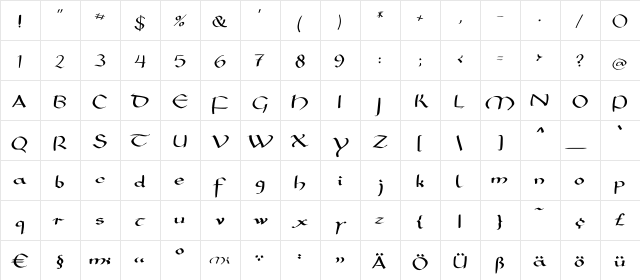
MKarolingish Regular
Design Context for MKarolingish Typeface
MKarolingish is a composed and adaptable typeface that performs quietly and consistently across a wide range of design contexts.